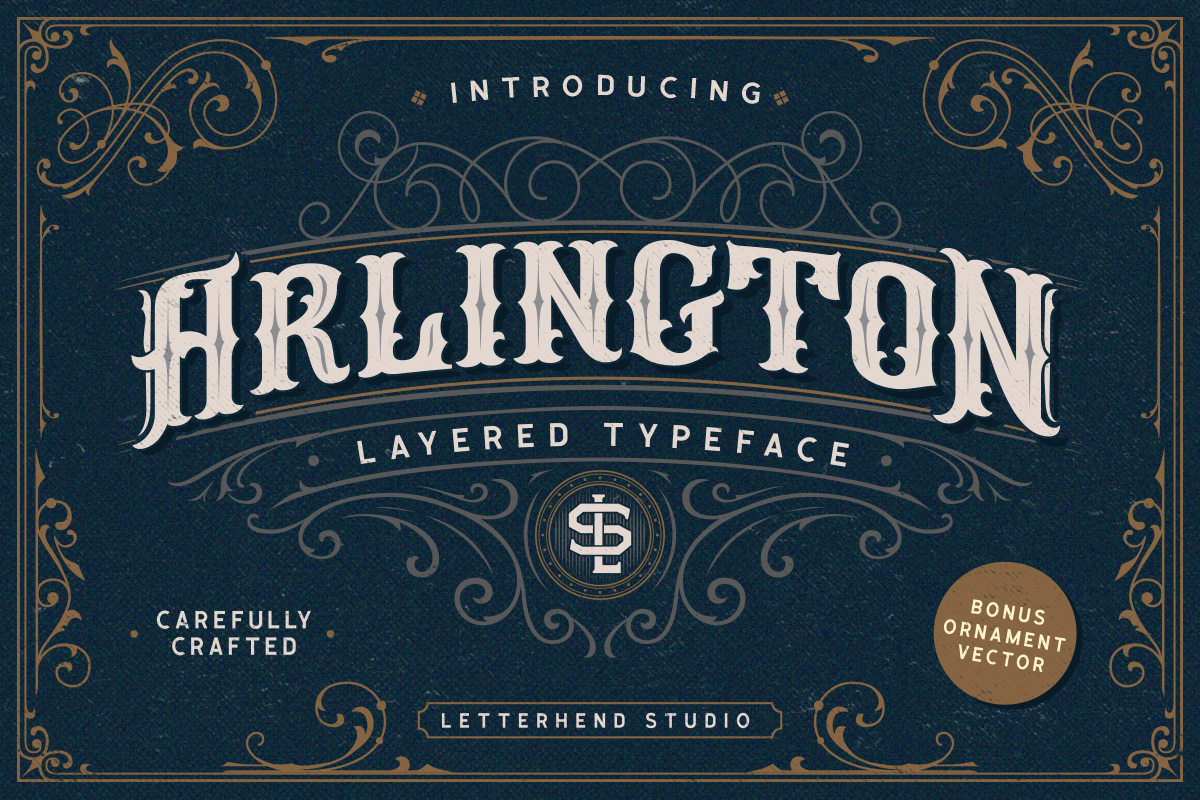
Arlington Layered Font & Ornaments
The Arlington Layered Font is ideal for vintage signage reproductions, classic Americana branding, retro automotive logos, traditional barbershop graphics, heritage brewery packaging, nostalgic restaurant displays, old-school sports team designs, and authentic historical recreations. This distinctive typeface brings dimensional craftsmanship and timeless American style to any design project requiring layered sophistication and vintage authenticity.
What makes the Arlington Layered Font so exciting is its masterful recreation of traditional sign-painting techniques that perfectly captures the dimensional beauty and artisanal craftsmanship of hand-lettered vintage signage. The font features multiple layerable components including shadows, outlines, and highlights that can be combined to create authentic three-dimensional effects reminiscent of classic painted signs and carved wooden displays.
The Arlington Layered Font family includes base, shadow, outline, highlight, and decorative layer variations, along with vintage ornaments, classic borders, and traditional American design elements, providing designers with comprehensive tools for creating authentic period brand experiences and dimensionally rich typographic compositions.
Craft dimensional excellence with the Arlington Layered Font Free Download. This versatile typeface has become essential for heritage brand designers, vintage restoration specialists, and traditional signage artists who need typography that authentically recreates the golden age of American sign-making craftsmanship. The font features extensive character support including multilingual capabilities, period-appropriate symbols, and traditional ornamental elements optimized for layered compositions.
Whether you're restoring historical signage, developing branding for heritage businesses, or creating vintage-inspired marketing materials, this font delivers unmatched authenticity. The carefully engineered layer system allows designers to build custom dimensional effects while maintaining the handcrafted quality and traditional proportions that characterized America's finest vintage signage and typography.
Heritage preservation specialists value the font's historically accurate representation of traditional sign-making techniques without oversimplifying the complex layering methods used by master craftsmen. The dimensional components create genuine vintage appeal while helping brands establish connections with audiences who appreciate American craftsmanship traditions and authentic period styling.
The Arlington Layered Font excels in applications where historical accuracy and dimensional impact are essential, from museum exhibit recreations to heritage tourism marketing. The font's traditional American heritage makes it particularly effective for brands celebrating classic Americana values and artisanal quality.